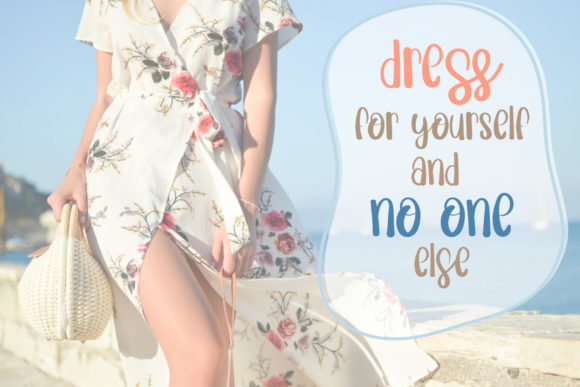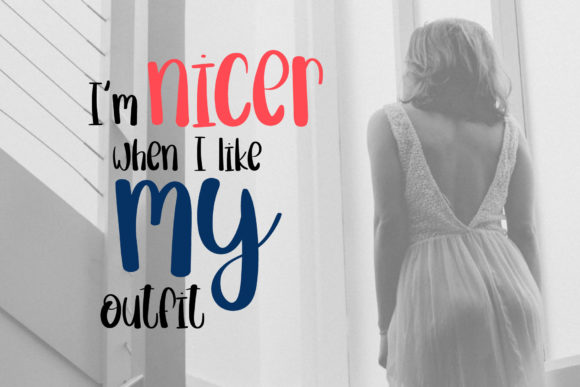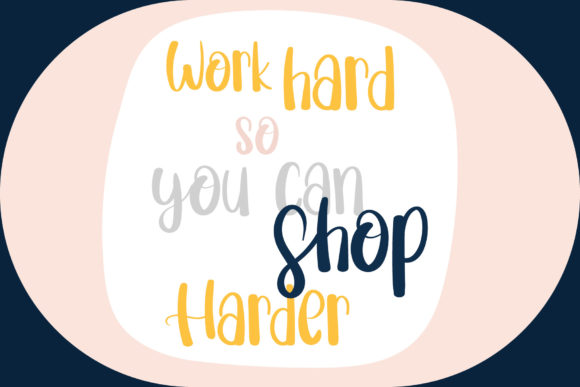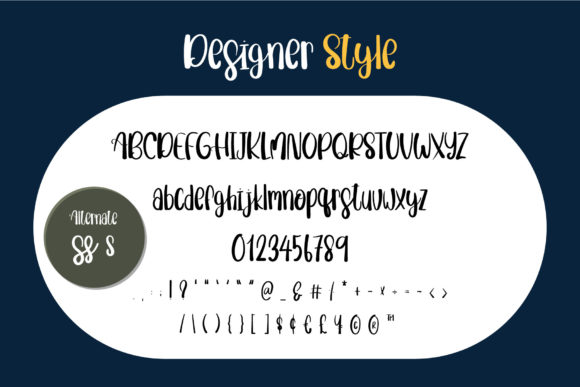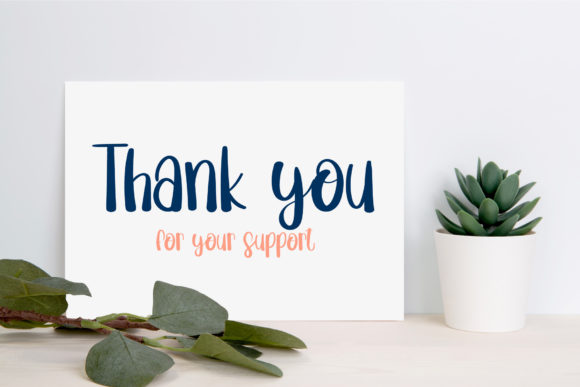
Designer Style Font
About Designer Style Font
Designer Style is a whimsical script font with a relaxed theme, featuring a lovely style. No matter the topic, this font will be an incredibly asset to your fonts’ library, as it has the potential to elevate any creation.